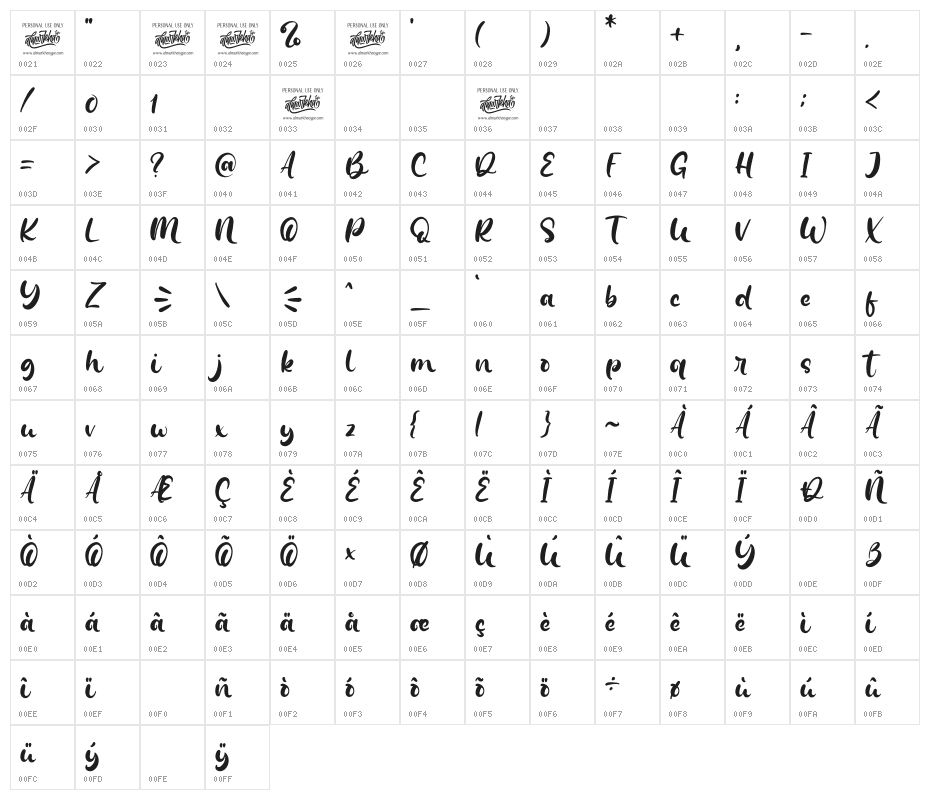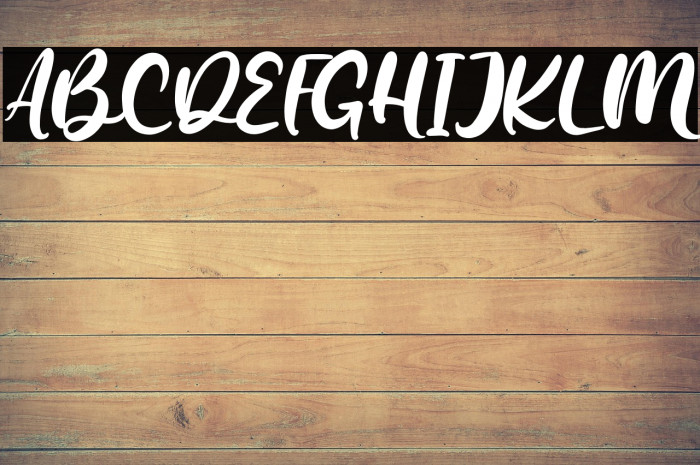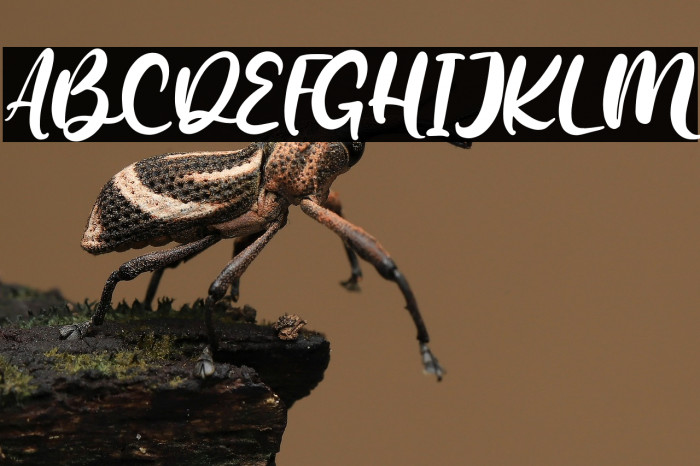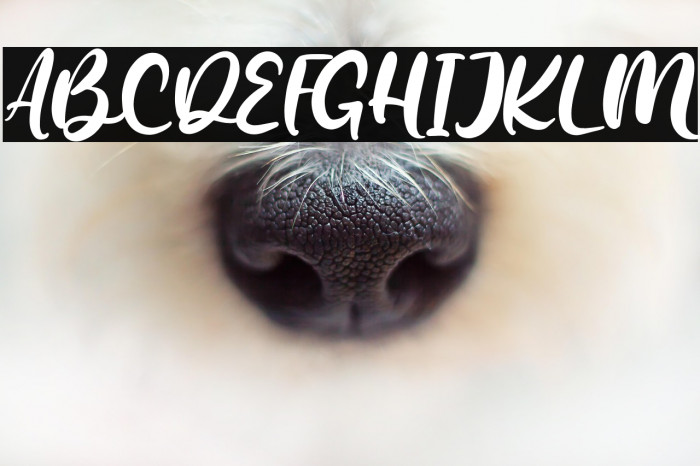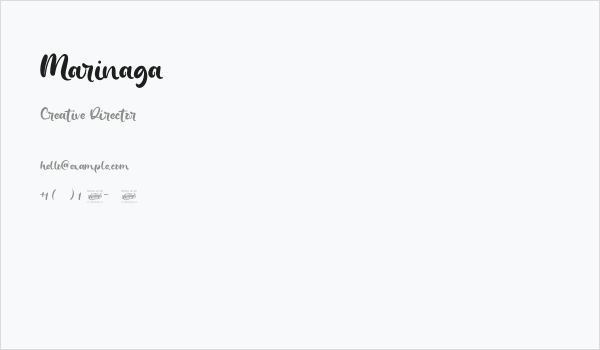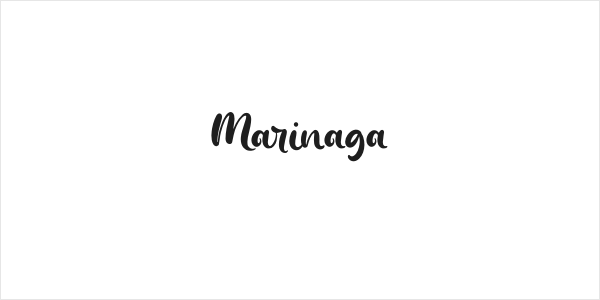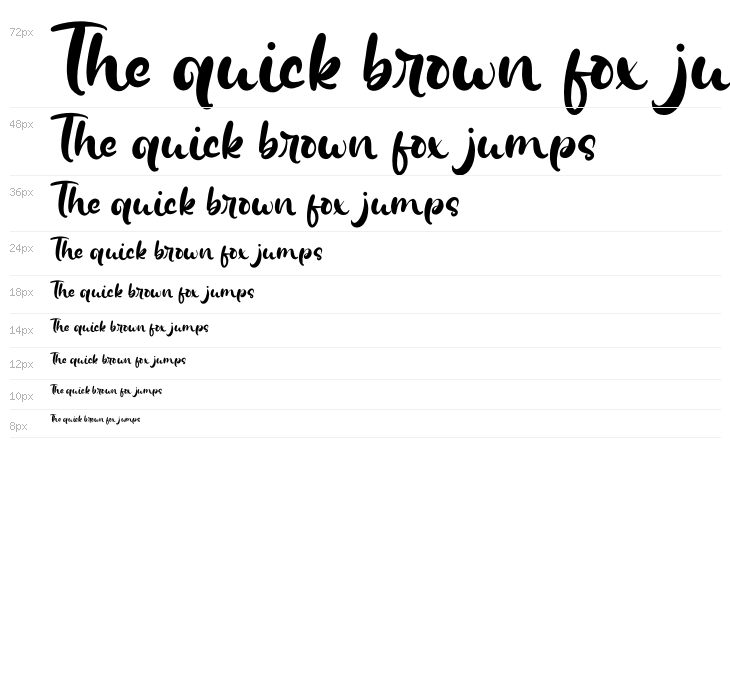
Marinaga Font
Marinaga Description
This font features a bold, flowing script style that exudes a sense of elegance and creativity. The letters are interconnected with smooth, sweeping curves, giving it a handwritten appearance. The uppercase letters are particularly striking, with a dynamic and expressive form, while the lowercase letters maintain a consistent rhythm and flow. The numerals and special characters complement the overall design, maintaining the same fluidity and artistic flair. This font is ideal for projects that require a personal touch, such as invitations, branding, or artistic designs. Its bold strokes and high contrast make it stand out, ensuring readability while maintaining its decorative appeal.
| Use Case | Logos, Headlines, Artistic designs |
| Proposed Projects | Ideal for invitations, branding, artistic designs, and any project needing a personal touch. |